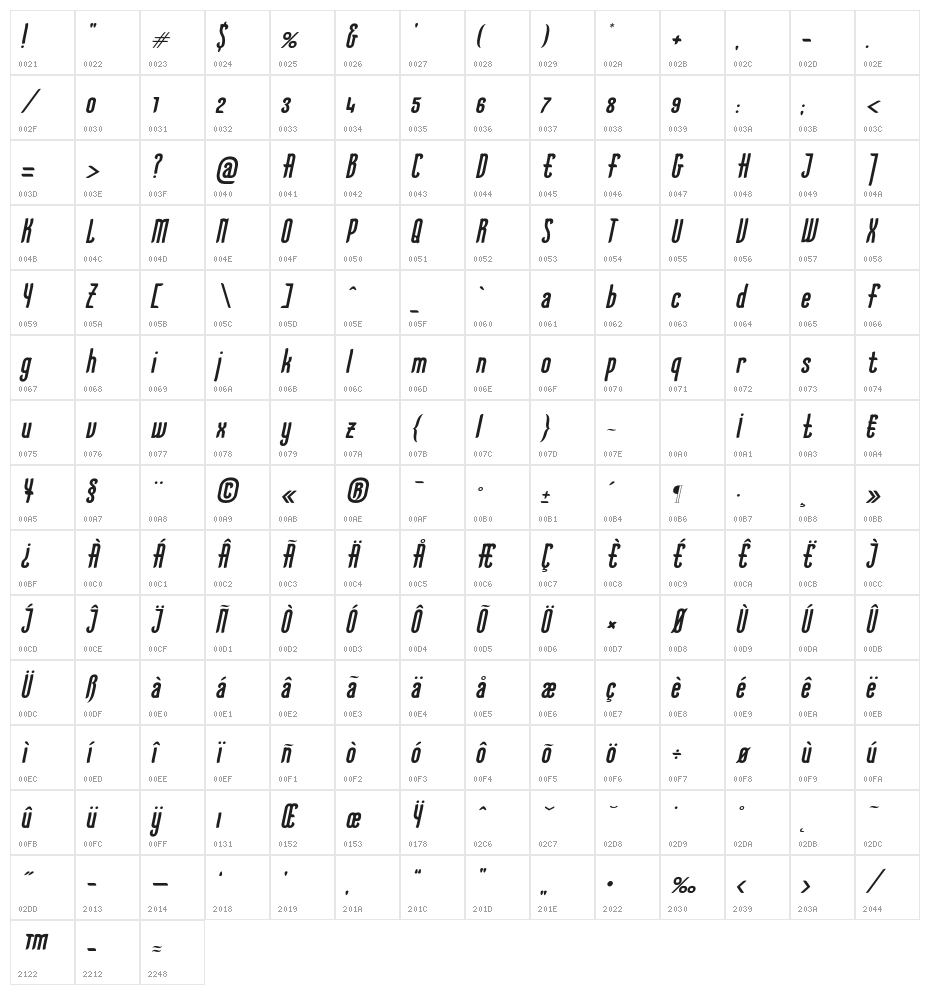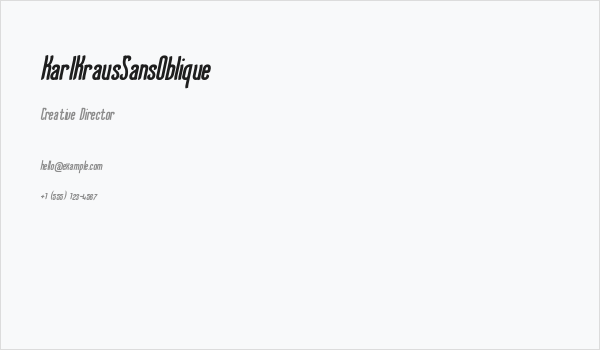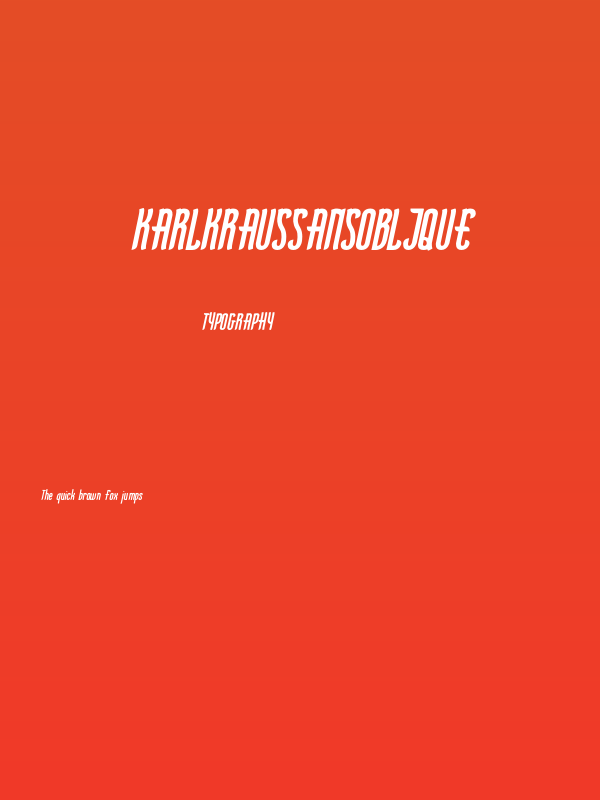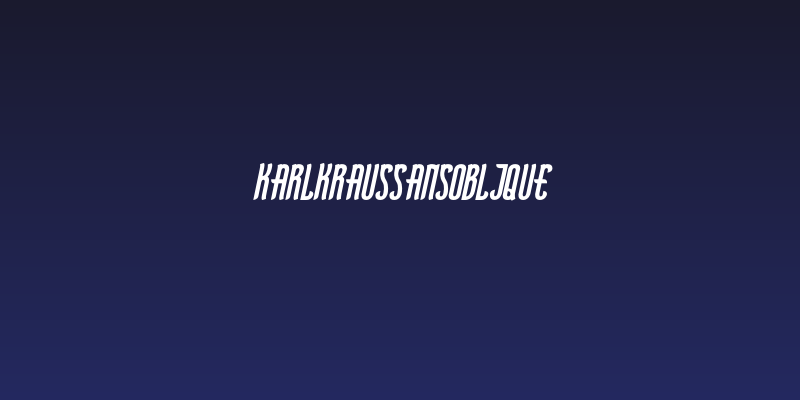
KarlKrausSansOblique Font
KarlKrausSansOblique Description
This font features a dynamic and modern oblique style, characterized by its slanted and elongated letterforms. The uppercase and lowercase letters maintain a consistent slant, giving the typeface a sense of movement and energy. The strokes are bold and slightly condensed, providing a strong visual impact. The numerals and special characters follow the same stylistic cues, ensuring uniformity across all glyphs. This font is well-suited for projects that require a contemporary and assertive look, such as branding, advertising, and editorial design.
| Proposed Projects | Ideal for branding, advertising, editorial design, and any project needing a contemporary and assertive look. |